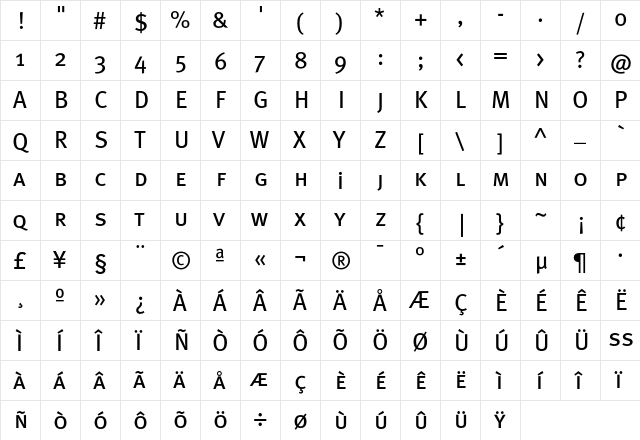
MetaBookTurk Caps
Design Context for MetaBookTurk Typeface
MetaBookTurk is a composed and adaptable typeface that performs quietly and consistently across a wide range of design contexts.